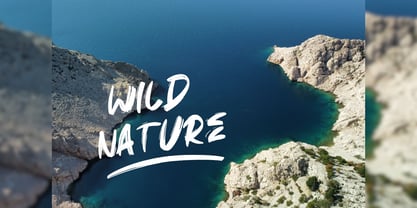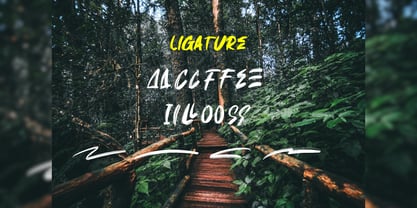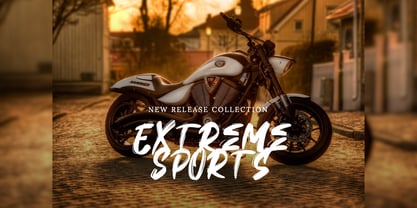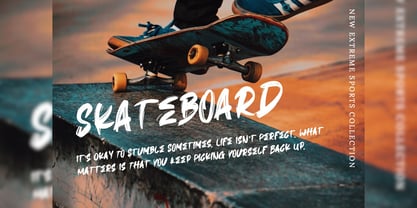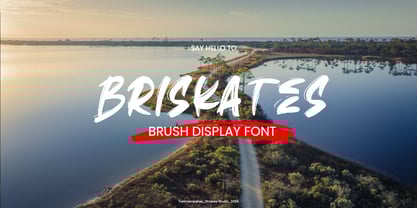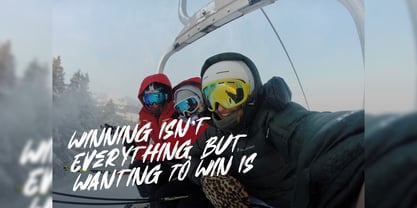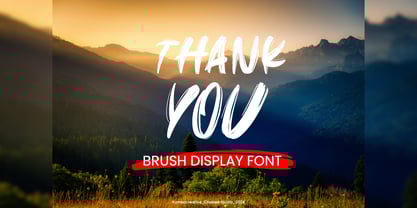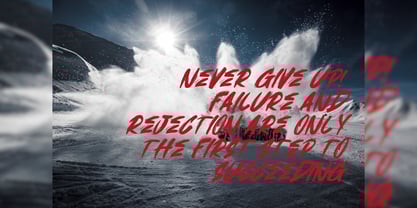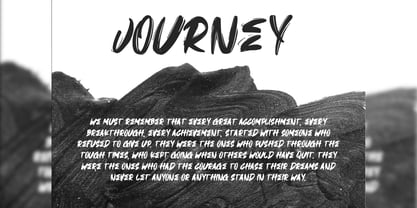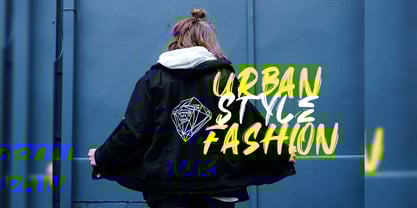
Briskates
by Yumnacreative
The Briskates Font Family was designed by Dhimas Habibie and published by Yumnacreative. Briskates contains 1 styles. More about this family
Introducing Briskates - Brush Display Font
This Font is a delicate, elegant and flowing handwritten font. It has beautiful and well as a unique blend of ligatures a letter, so that the authors compose it with a and little swirly embedding, so that a modern font is formed and ready to make a statement by adding elegant and unique flair to your next design project. Add it to your most creative ideas and notice how it makes them come alive!
FEATURES
- Uppercase and Lowercase letters
- Ligature and unique alternate
- Numbering and Punctuations
- Multilingual Supports